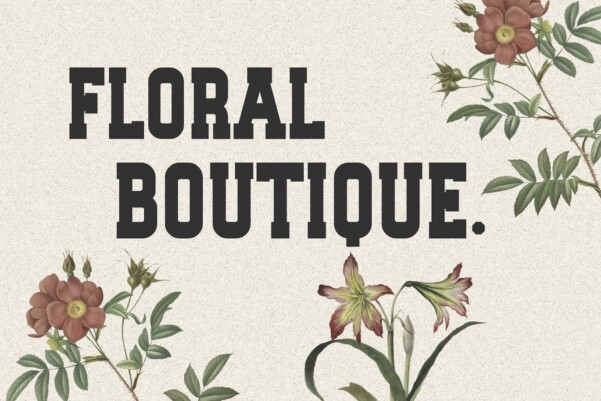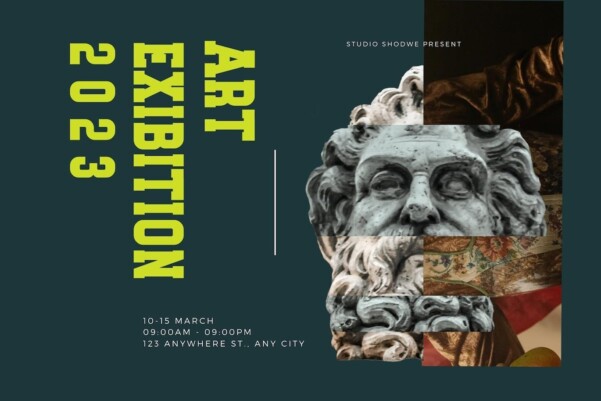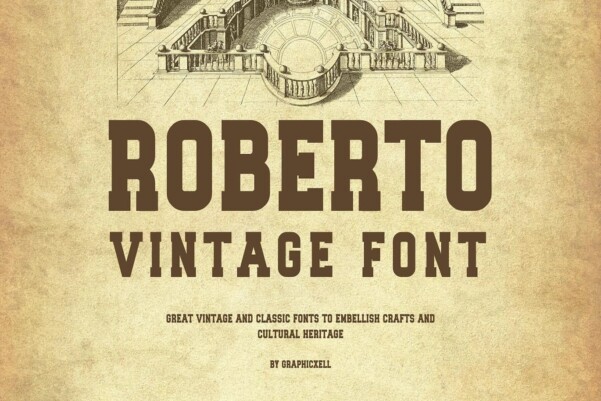
Roberto Vintage Font
Roberto Vintage Font Typeface inspired by the famous minimalist logo perfect for the purposes of designing templates, brochures, videos, advertising branding, logos, invitation, layout design, elegant crafting, beauty design and other